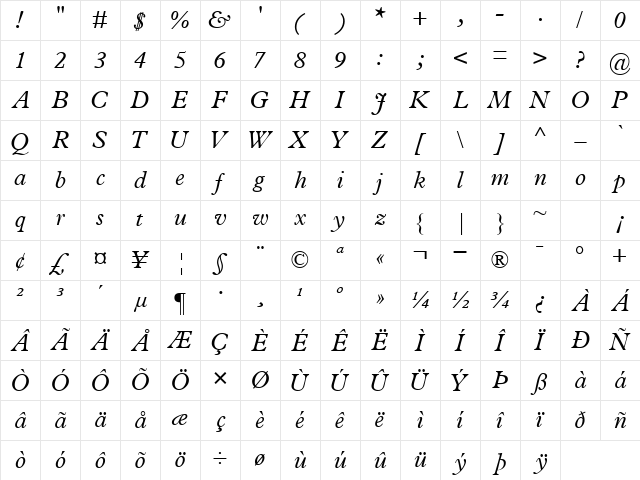
TerminusSSK Italic
Complete TerminusSSK Italic glyph index. Displaying only characters natively supported by TerminusSSK Italic font.
Design Context for TerminusSSK
TerminusSSK is a composed and adaptable typeface that performs quietly and consistently across a wide range of design contexts. The slanted form adds forward momentum and visual energy.
Pro Tip: Use TerminusSSK for emphasis, pull quotes, and subheadings where its slanted energy can add rhythm to the layout.